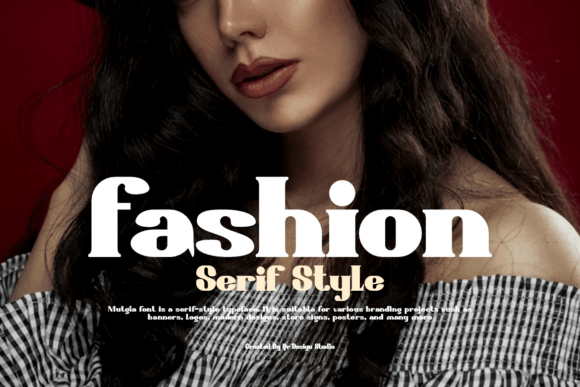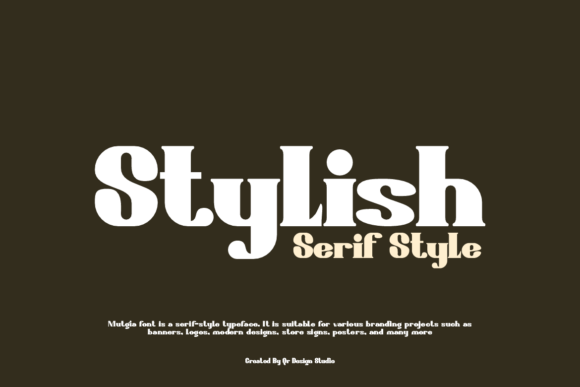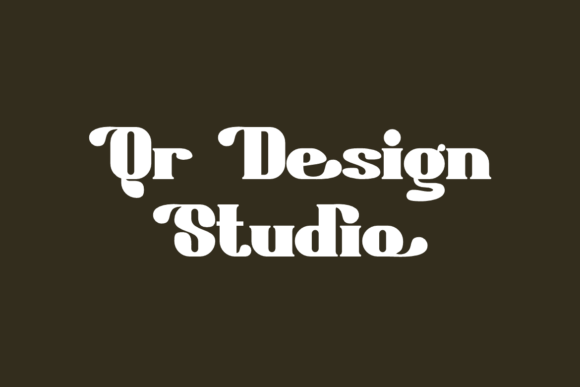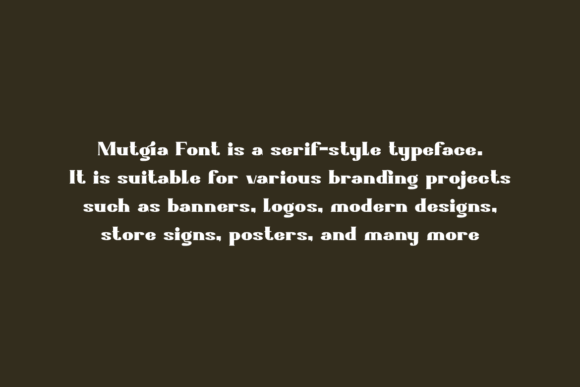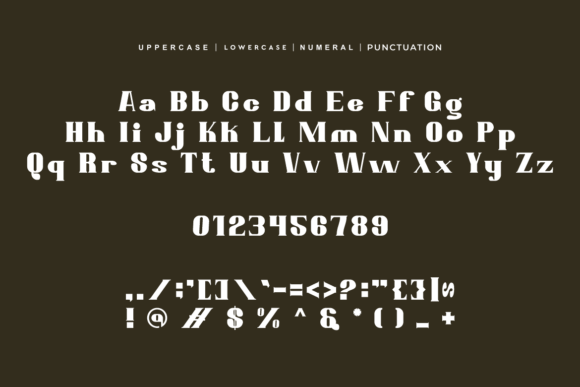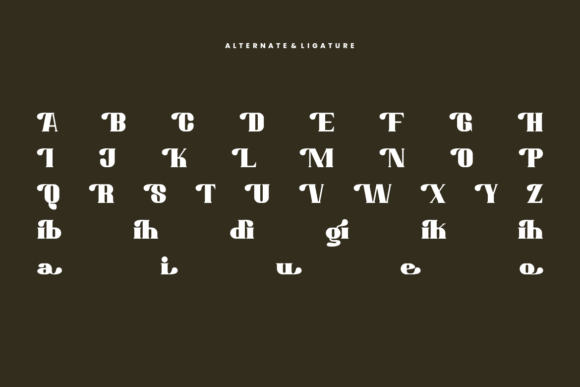
Introduction to Mutgia Font
Have you ever found yourself stuck in a creative rut, struggling to find the perfect font to bring your design project to life? It’s a feeling we’ve all been there, and it’s exactly why the discovery of a new, high-quality font can be such a game-changer. For designers looking to add a touch of sophistication and elegance to their work, the Mutgia Font is an absolute treasure trove of inspiration.
Characterized by its bold weight, high-contrast strokes, and playful, rounded terminals, the Mutgia Font is a true design resource that seamlessly blends vintage charm with a modern twist. Whether you’re working on a luxury branding project, a lifestyle magazine layout, or premium product packaging, this versatile typeface is sure to elevate your design to the next level.
Honest Review: Mutgia Font
I recently stumbled upon the Mutgia Font and was excited to give it a try in my latest creative project. As a designer, I’m always on the lookout for high-quality fonts that can elevate my work.
The Mutgia Font is a design resource that offers a sleek and modern aesthetic, making it perfect for a wide range of creative projects. I was impressed by the font’s versatility and how it can be used in various contexts, from logos to digital products.
Here are some things that work well about the Mutgia Font: ✨
- High-quality design: The Mutgia Font has a clean and professional look that makes it suitable for any creative project.
- Customizable: The Mutgia Font can be easily customized to fit your specific design needs.
However, I did encounter some limitations with the Mutgia Font: ⚠️
- Limited character set: The font’s character set is limited, which may be a drawback for designers who need a wide range of characters.
- Not suitable for complex typography: While the Mutgia Font is great for simple designs, it may not be the best choice for complex typography projects.
Overall, I’m impressed with the Mutgia Font and would recommend it to designers who are looking for a high-quality, free design resource. While it may have some limitations, its versatility and ease of use make it a valuable addition to any design toolkit.
Designing with Mutgia Font
Mutgia Font is a versatile and high-quality design resource ideal for creative projects. With its modern and sleek aesthetic, it’s perfect for adding a touch of sophistication to your designs. To get the most out of Mutgia Font, follow these steps:
Mutgia Font is perfect for a variety of design projects, including:
Business cards and letterheads
Branding and logo design